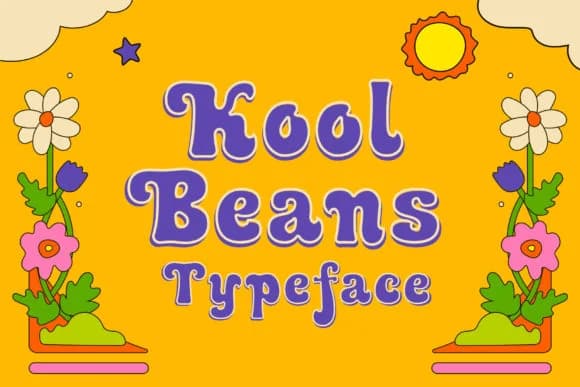
There's something irresistibly warm and genuinely unpretentious about this typeface that immediately signals the spirit of an era. Kool Beans by HipFonts channels the optimistic, hand-lettered spirit of 1960s and 70s design with its chunky slab-serif structure and genuine retro character. The font shines for vintage album cover redesigns, groovy cafe and restaurant signage, throwback concert and music festival posters, retro greeting card suites, boho lifestyle product labeling, and DIY peace-movement inspired t-shirt designs where authenticity truly matters. Its bold weight gives everything an immediately eye-catching presence without feeling overstated or tired.
Beyond the visual punch, Kool Beans comes with a complete character set accessible through PUA encoding, giving you swashes and alternate glyphs to layer into your layouts whenever you need them. Hand-lettered roots show in every curve and corner, keeping the design feeling genuinely personal rather than mechanically perfect. Pair it with a minimal, modern sans-serif for body copy to create genuine visual contrast and let both typefaces do their job independently. This kind of pairing works beautifully when you're balancing nostalgic headlines against clean, contemporary layouts. You'll find Kool Beans ready and waiting on Creative Fabrica for your next project that genuinely deserves some honest retro soul.
- Sturdy, Confident, Authentic
Kool Beans Font is a slab serif font that shines as a display or heading face. Pair it with a clean sans-serif or serif font for body text β the contrast creates a clear hierarchy while the two styles stay balanced and easy to read.